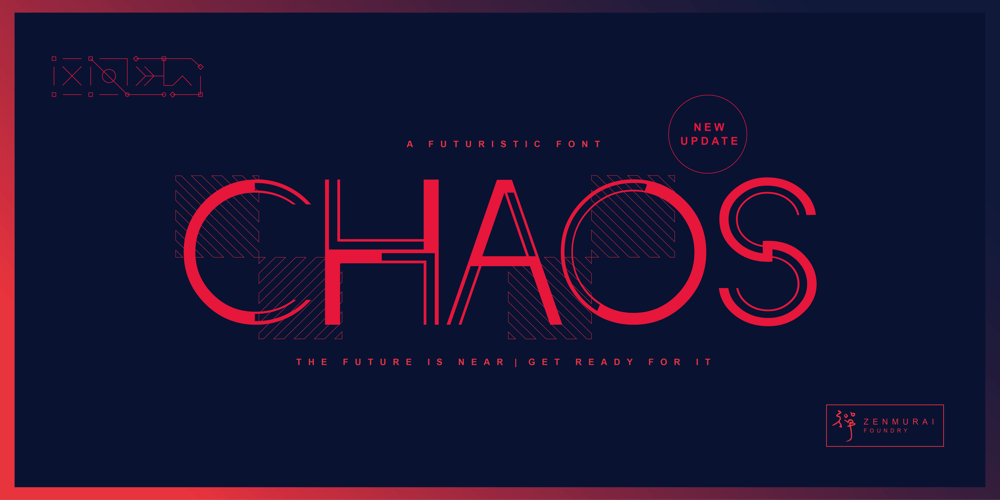
Chaos Font Family was designed by HTL Ryan and published by Zenmurai. Chaos contains 1 styles and family package options. Chaos is a caps only modern sans with a geometric and futuristic style touch inspired by “Blade Runner” , “Cyberpunk 2077” , “Ghost In The Shell” and Futuristic UI & Transistor. The difficulty in make Chaos typeface is achieve balance between simplicity and complexity.This font is an exploration of Sci-Fi movies & Futuristic User Interface, using the visual language narratives to catalyze new styles and perception.